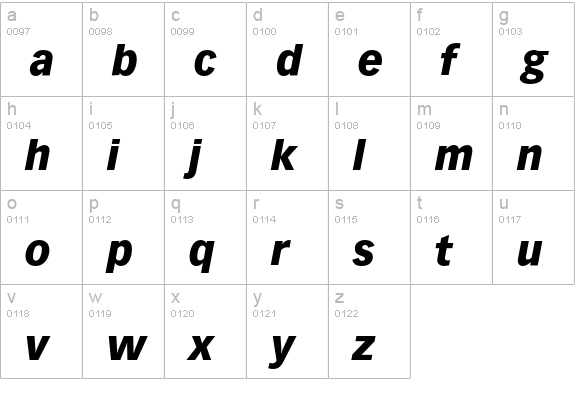
Vectora LH 96 Black Italic Font Details
Vectora LH 96 Black Italic is a maximum-weight, dramatic, italic variant in the Vectora typeface family \xE2\x80\x94 well suited to maximum-impact headlines, posters, and packaging.
Vectora LH 96 Black Italic font is a stunning and elegant typeface that exudes sophistication and style. With its sleek and modern design, this font is perfect for adding a touch of professionalism to any project or design. The italicized version of Vectora LH 96 Black font adds a sense of dynamism and fluidity to your text, making it visually appealing and captivating. Whether you are designing a logo, creating a presentation, or crafting a poster, this font will elevate your work to new heights. One of the best things about Vectora LH 96 Black Italic font is that it is available for free download at FontsMarket.com. This means that you can easily access this amazing font without any cost and use it in your personal and commercial projects. So, why wait? Get your hands on Vectora LH 96 Black Italic font today and experience the power of a high-quality and freely available typeface. Transform your designs into works of art and leave a lasting impression on your audience.